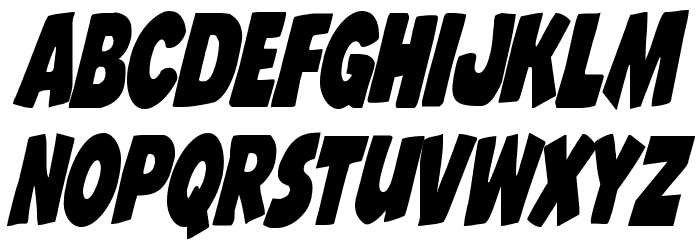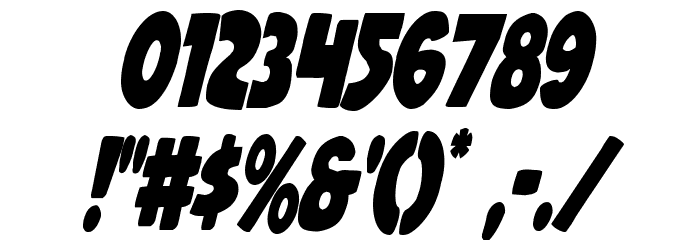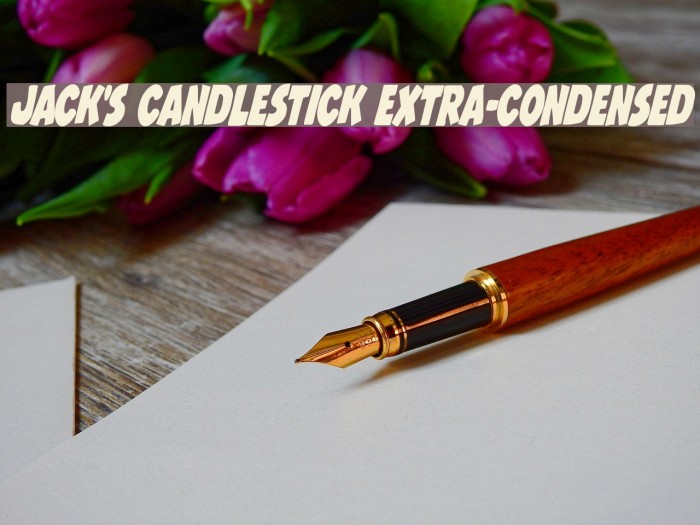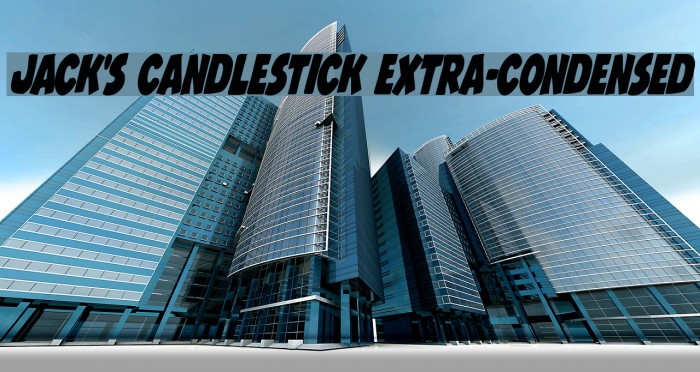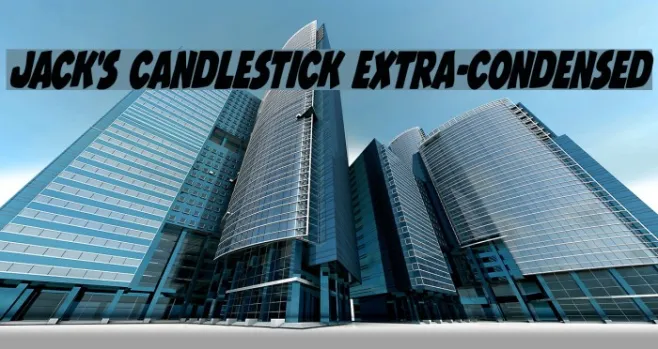
Jack's Candlestick Extra-condensed Font
This font is a bold and dynamic display typeface with an extra-condensed style. The characters are heavily slanted, giving a sense of movement and urgency. The strokes are thick and uniform, creating a strong visual impact. The uppercase and lowercase letters maintain a consistent style, with sharp angles and a slightly retro feel. The numbers and special characters are equally bold, ensuring they stand out in any design. This font is ideal for making a statement and grabbing attention.
A bold, extra-condensed display font with a dynamic, slanted style.
- Proposed Projects: Ideal for posters, headlines, branding, and any project needing a bold statement.
- Character Spacing: Tight
- Overall Style: Retro, Dynamic
- Use Case: Headlines, Posters, Branding